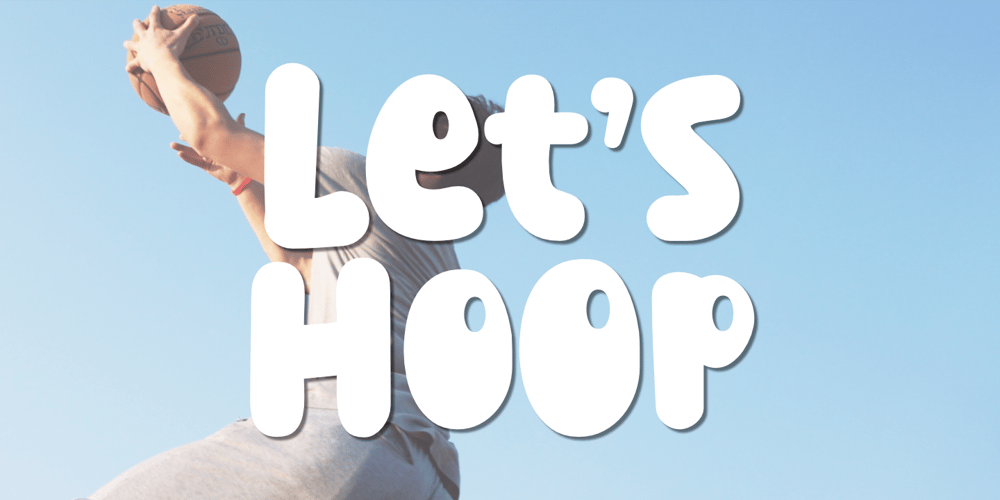
Lets Hoop Font Family was designed by Aldy Sidik and published by Epiclinez. Lets Hoop contains 1 styles and family package options. Let’s Hoop is a simple, bold, and fun display font. Its informal style and casual vibe will make this font a go-to choice for each of the creations that require a relaxed touch. This font contains 194 glyphs, supporting 66 languages, which include: Afrikaans Albanian Catalan Danish Dutch English Estonian Finnish French German Italian Norwegian Portuguese Spanish Swedish Zulu, and more.So what’s included: Basic Latin A-Z & a-z. Numbers, symbols, and punctuations Multilingual Support. Accented Characters : ÀÁÂÃÄÅÆÇÈÉÊËÌÍÎÏÑÒÓÔÕÖØŒŠÙÚÛÜŸÝŽàáâãäåæçèéêëìíîïñòóôõöøœšùúûüýÿžß Thank You